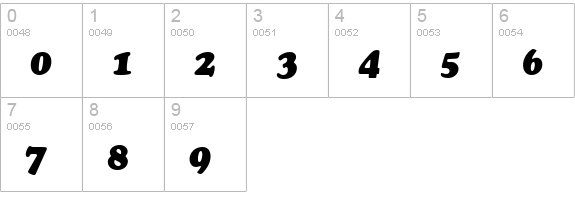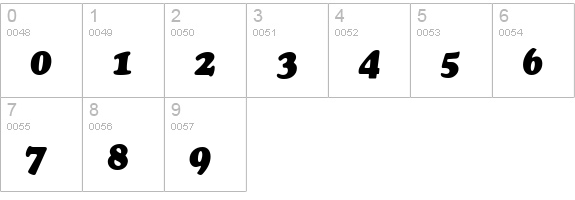
QTKooper Italic Font Details
QTKooper Italic is a distinctive, italic variant in the QTKooper typeface family \xE2\x80\x94 well suited to design and typography projects.
QTKooper Italic is a stunning font that effortlessly combines elegance and modernity. Its sleek and stylish curves make it the perfect choice for any design project that requires a touch of sophistication. Whether you're creating a logo, designing a website, or crafting a beautiful invitation, QTKooper Italic will add a touch of class to your work. This unique font features a distinctive italicized style that adds a sense of motion and fluidity to your text. The slightly slanted letterforms create a dynamic and eye-catching look that is sure to captivate your audience. Each character is meticulously crafted, with smooth lines and intricate details that showcase the font's impeccable craftsmanship. QTKooper Italic is not only visually appealing, but it is also incredibly versatile. It works well in both large and small sizes, making it suitable for a wide range of applications. Whether you're designing a bold headline or adding a subtle touch to body text, this font will adapt seamlessly to any layout. One of the best aspects of QTKooper Italic is that it is free to download. You can easily access this font at FontsMarket.com, where it is freely available for personal and commercial use. Its accessibility makes it a valuable asset for designers and creatives alike, allowing you to enhance your projects without breaking the bank. In conclusion, QTKooper Italic is a visually captivating font that effortlessly combines elegance and modernity. With its sleek curves, dynamic style, and versatility, it is a must-have for any design project. And the best part? It's free! Download QTKooper Italic today from FontsMarket.com and elevate your designs to new heights.